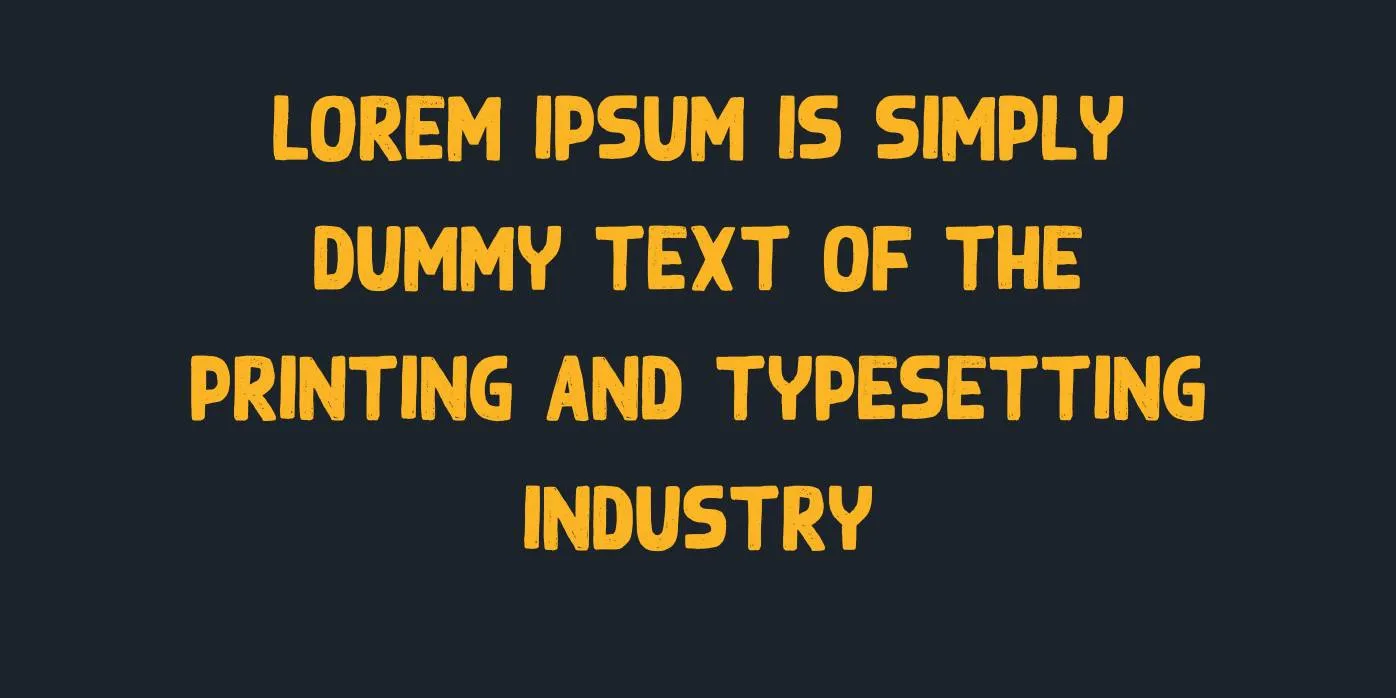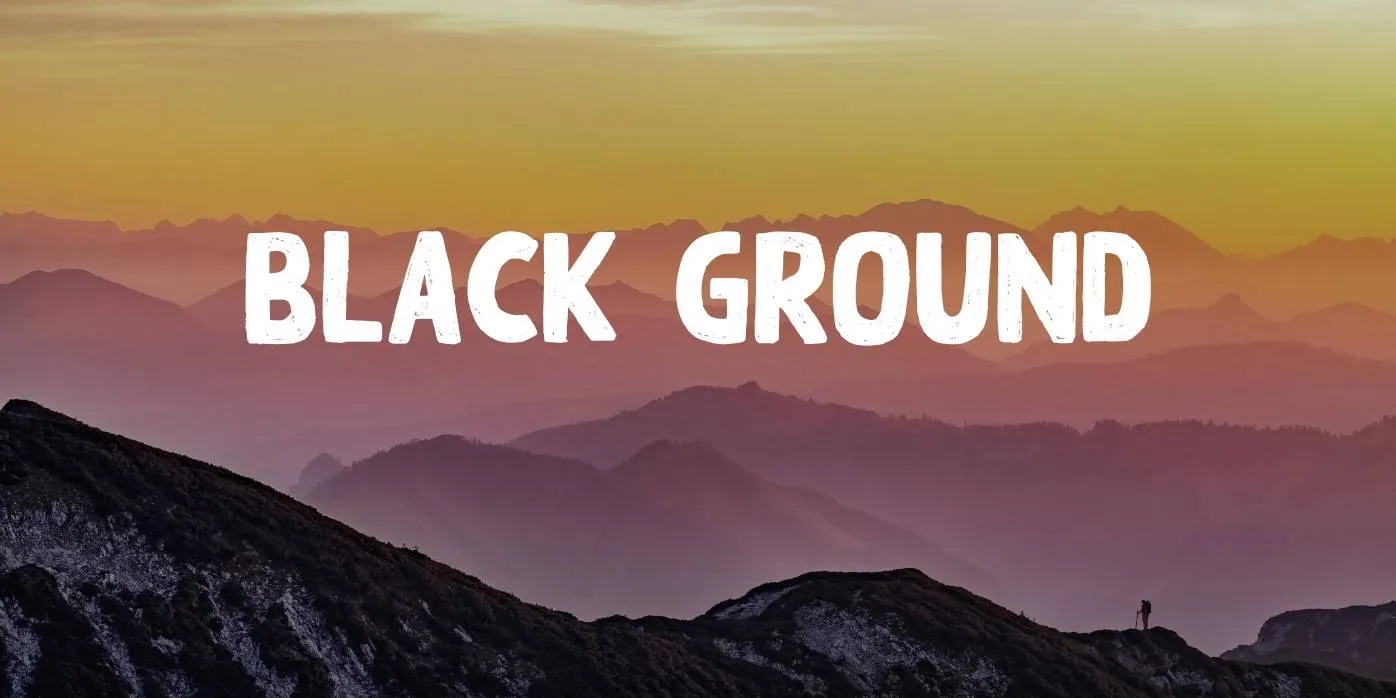
Black Ground Font
Let’s talk about a very amazing typeface Black Ground Font. It is a very neat and clean font and can be used to design many different projects. It was designed by Risman Ginarwan and manufactured by Grisman Studios. This font is in all capitalized format its alphabets can be used to design so many attractive projects.
It has different features which makes it unique and perfect for use. It has 291 characters, 257 glyphs, and 1000 units per Em. The weight of the font is bold and its width is semi-condensed. Languages supported by this font are Latin and symbols.
It has characters, symbols, numbers, capital letters, and punctuation.  This font is a very neat and clean font and has high readability. It has all-caps alphabets which gives it a very attractive and strong look for headlines and other projects. Using this font, you can make attractive banners, posters, flyers, and brochures. To make attractive website designs and graphic designs you can use this font as well.
In Adobe Photoshop, CSS, and Canva you can make stunning designs by using this font. To make print on T-shirts, mugs, and other fabrics you can use this font. It is considered a very nice font for printing novels, Book covers, magazine covers, and stationery. You can also use this font for making attractive Logos and titles for movies and video games.
FAQs! Who is the designer of Black Ground Font? This amazing and neat font was designed by Risman Ginarwan and manufactured by Grisman Studios. You can use it for making different projects.